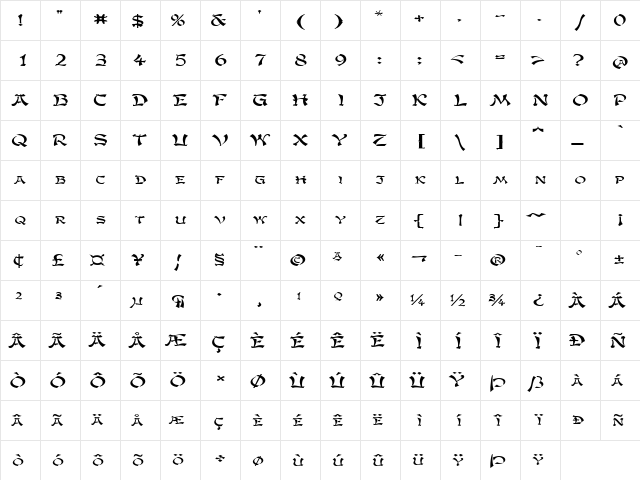
GengisKahnExtended Regular
Design Context for GengisKahnExtended Typeface
GengisKahnExtended is a composed and adaptable typeface that performs quietly and consistently across a wide range of design contexts.
Pro Tip: Use GengisKahnExtended in both headline and body roles to test its range before committing to a single application.